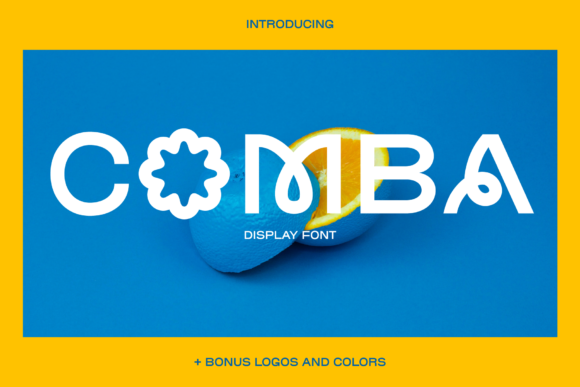
Introducing Comba Font: The Cool, Casual, and Fun Display Font for All Your Design Needs
Are you tired of using the same old fonts for your designs? Look no further than Comba Font, a cool, casual, and fun display font that’s perfect for a variety of projects. Whether you’re a crafter, digital designer, presenter, or greeting card maker, Comba Font is the ideal choice for adding a touch of personality to your work.
What Makes Comba Font So Special?
- Unique and Eye-Catching Design: Comba Font boasts a distinctive and stylish design that’s sure to grab attention. Its casual and fun vibe makes it perfect for projects that require a laid-back feel.
- Versatile: This font is incredibly versatile and can be used for a wide range of projects, from crafting and digital designing to presentations and greeting cards.
- Easy to Read: Despite its unique design, Comba Font is easy to read, making it perfect for both headings and body text.
- High-Quality: Comba Font is a high-quality font that’s designed to deliver exceptional results, whether you’re working on a digital project or printing out physical materials.
10 Creative Ways to Use Comba Font
- Crafting: Add a personal touch to your crafting projects, such as handmade cards, gift tags, and scrapbooking, with Comba Font.
- Digital Designing: Use Comba Font to create stunning digital designs, including social media graphics, blog posts, and website headers.
- Presentations: Make your presentations stand out with Comba Font, perfect for titles, headings, and bullet points.
- Greeting Cards: Create beautiful and unique greeting cards for special occasions, such as birthdays, holidays, and weddings.
- Signage: Use Comba Font for signage, including event signs, directional signs, and informational signs.
- Merchandise: Add Comba Font to your merchandise, such as t-shirts, mugs, and tote bags, for a fun and casual look.
- Posters: Create eye-catching posters for events, promotions, and advertisements with Comba Font.
- Brochures: Use Comba Font to create engaging and informative brochures for businesses, organizations, and events.
- Invitations: Make your invitations stand out with Comba Font, perfect for parties, weddings, and other special events.
- Social Media Graphics: Use Comba Font to create stunning social media graphics, including Facebook posts, Twitter headers, and Instagram stories.
Tips for Getting the Most Out of Comba Font
- Experiment with Different Sizes: Comba Font looks great in a variety of sizes, so don’t be afraid to experiment to find the perfect size for your project.
- Pair with Other Fonts: Combine Comba Font with other fonts to create a unique and visually appealing design.
- Use Color Effectively: Choose colors that complement Comba Font and enhance the overall look of your design.
- Keep it Simple: Don’t overcomplicate your design – Comba Font is perfect for simple, yet effective designs.
Comba Font is a cool, casual, and fun display font that’s perfect for a variety of projects. Its unique design, versatility, and ease of use make it an excellent choice for crafters, digital designers, presenters, and greeting card makers. With these tips and ideas, you’ll be able to get the most out of Comba Font and create stunning designs that showcase your creativity.